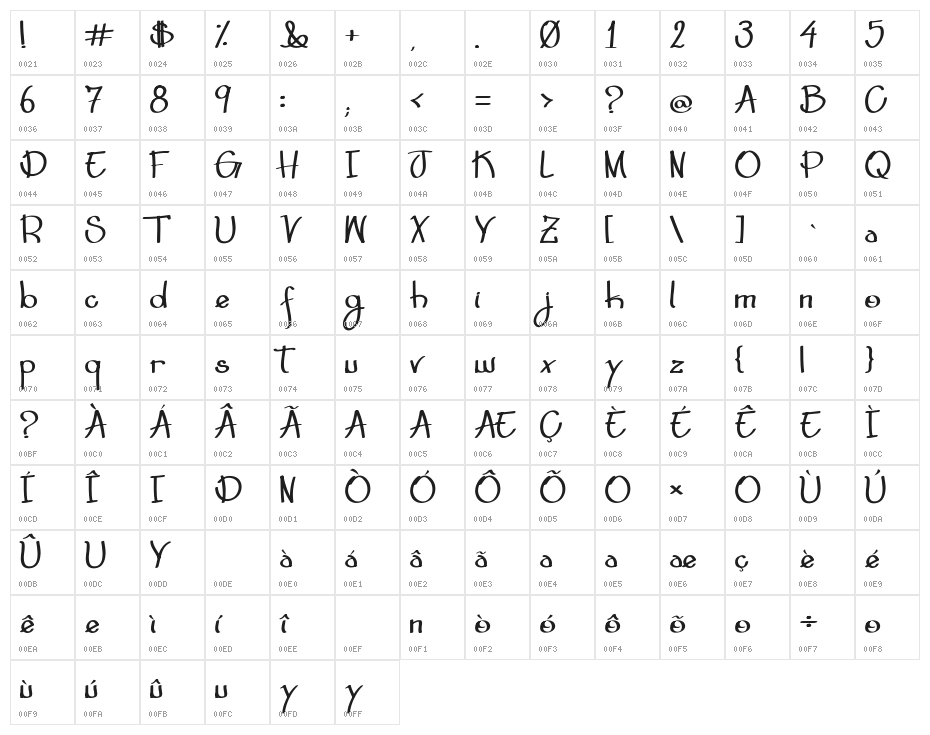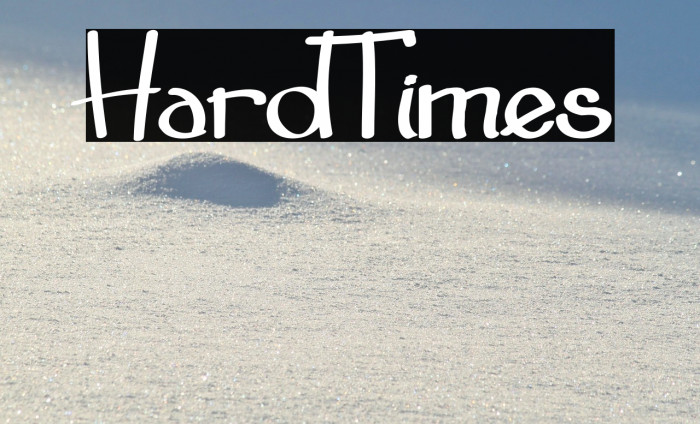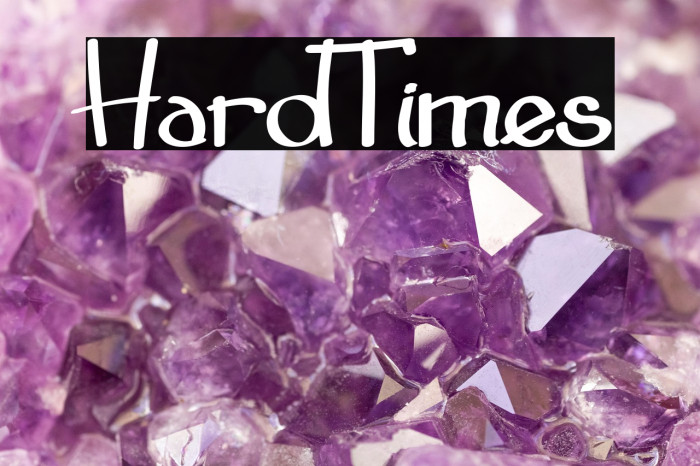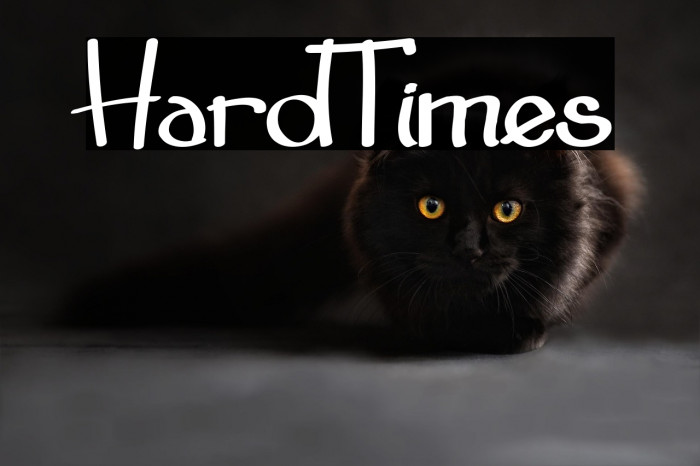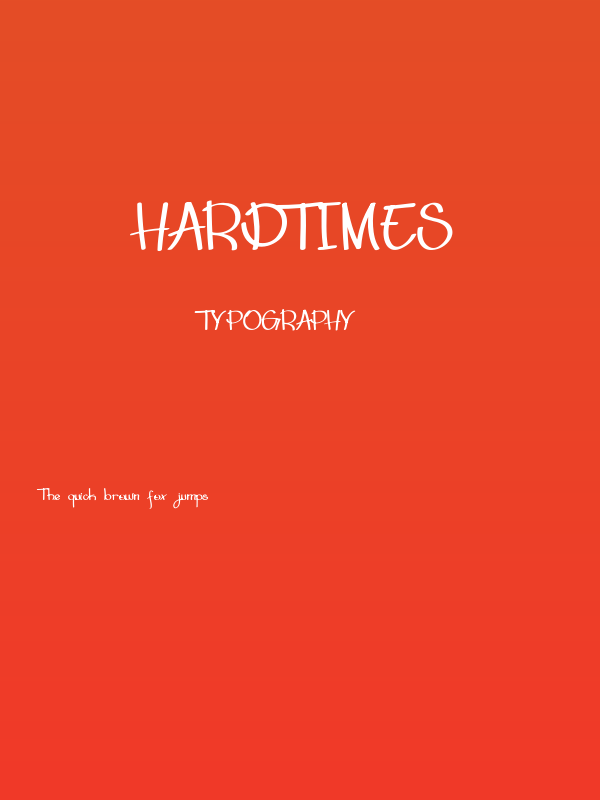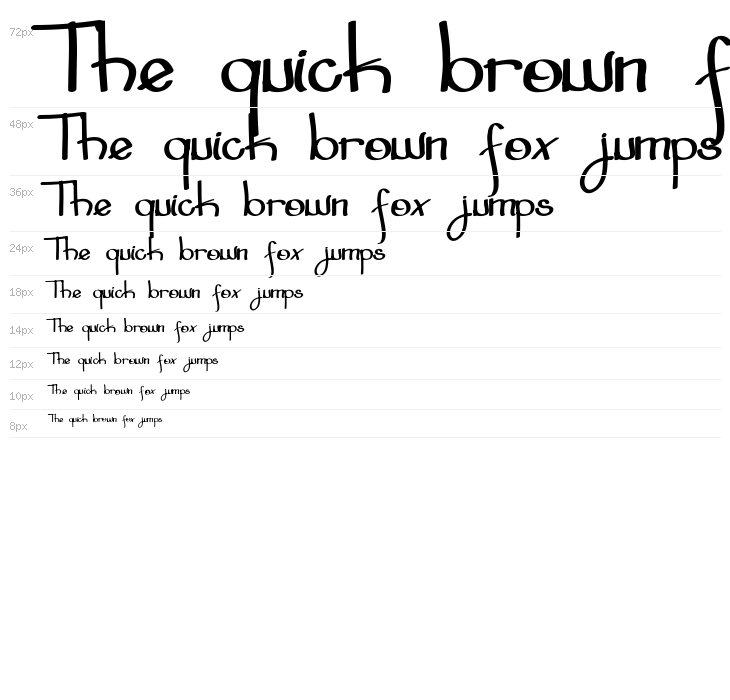
HardTimes Font
HardTimes Description
This font features a playful, handwritten style with a casual and informal appearance. The letters are slightly slanted, giving it a dynamic and lively feel. The strokes are consistent in width, contributing to a uniform look across all characters. The uppercase letters are bold and prominent, while the lowercase letters maintain a friendly and approachable vibe. Numbers and special characters are designed to match the overall style, ensuring cohesion throughout. This font is ideal for projects that require a personal touch or a creative flair.
| Overall Style | Playful |
| Use Case | Headlines, Logos, Creative projects |
| Proposed Projects | Ideal for greeting cards, invitations, children's books, and creative branding. |